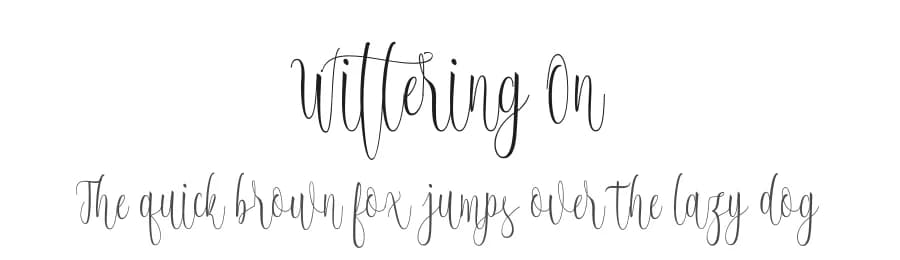
About Wittering On Font
Wittering On Font is a script font that shines as a display or heading face. Pair it with a clean sans-serif or serif font for body text β the contrast creates a clear hierarchy while the two styles stay balanced and easy to read.
Wittering On Font